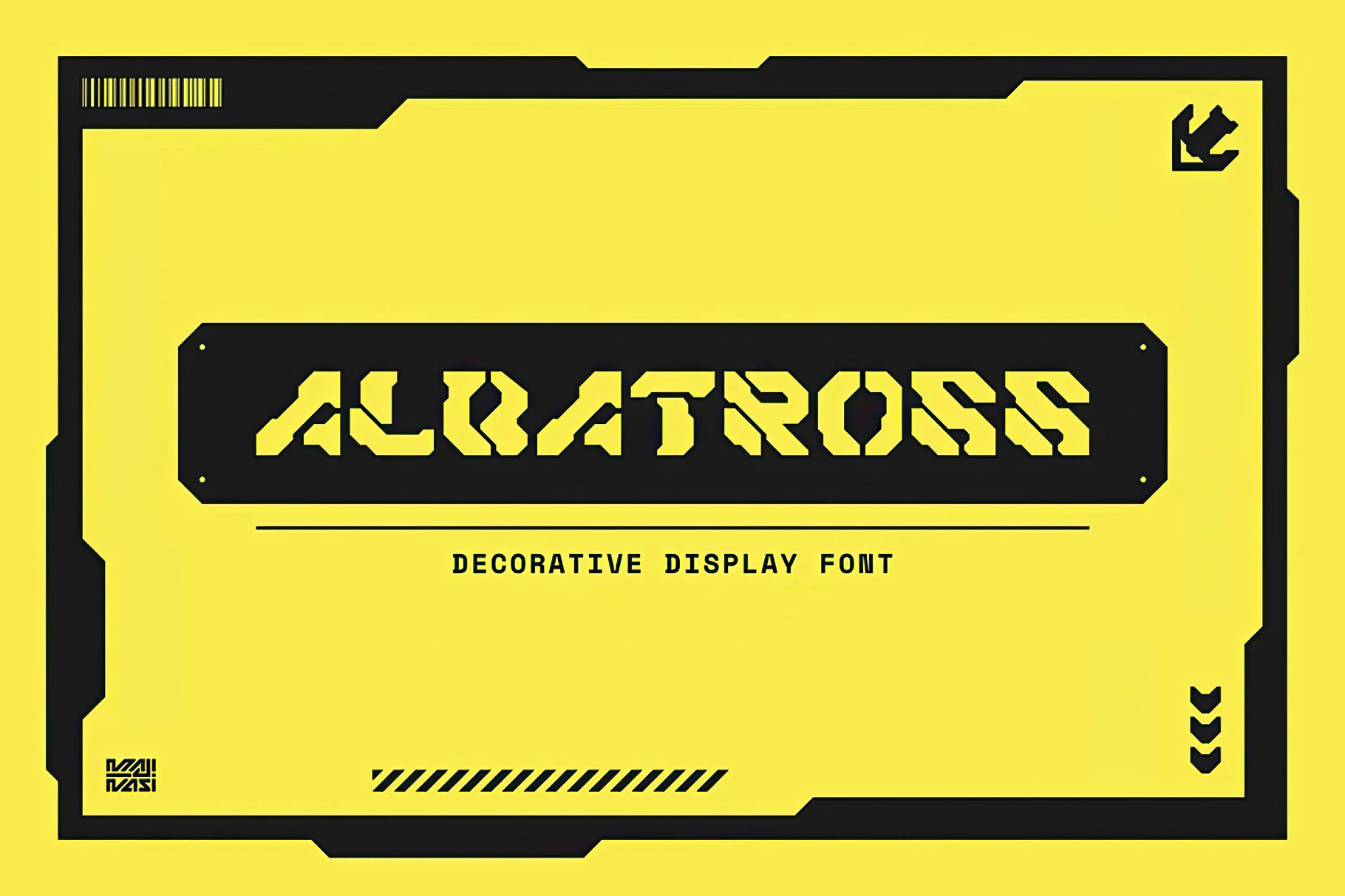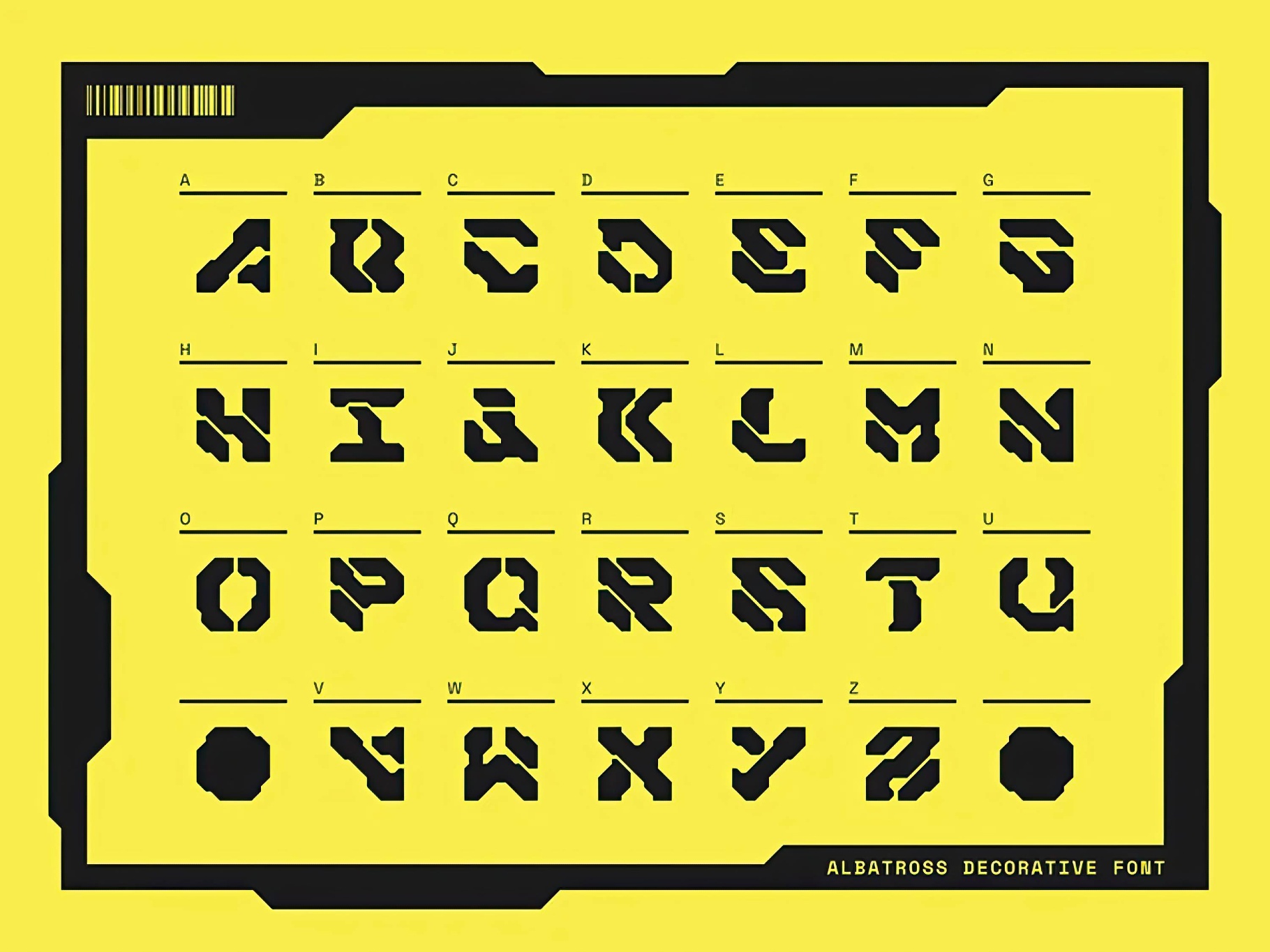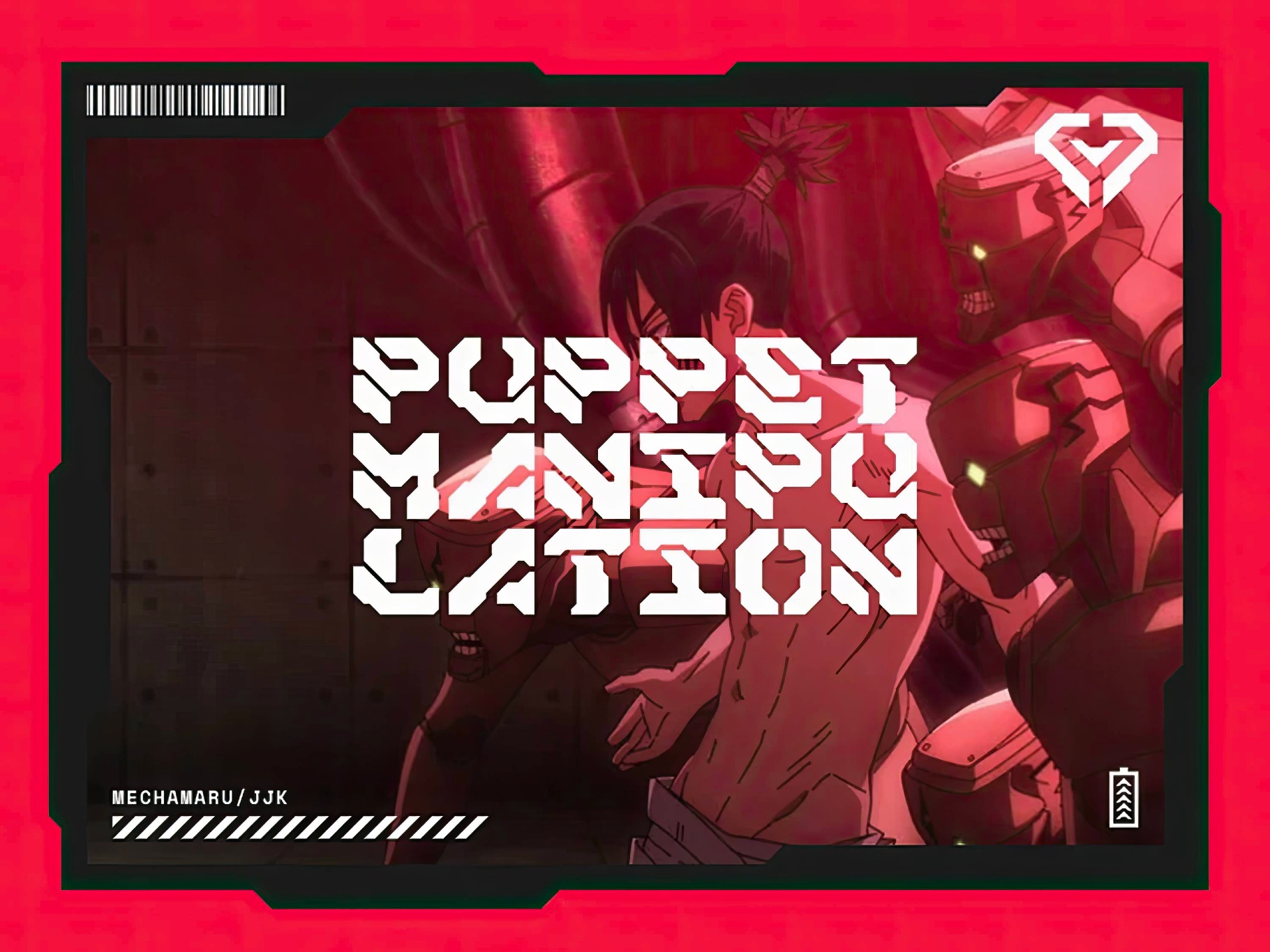
Albatross Cyberpunk Font
Albatross with sharp, cut-steel letterforms and tight mechanical spacing carries a warning label on a giant robot energy — precise and not designed for anything soft. Its sharp, aggressive aesthetic of mecha anime posters and late-night cyberpunk game covers naturally extends to game titles, tech posters, album artwork, cinematic title cards, esports branding, packaging, event identities, music covers, merch, interface headers, and motion graphics.